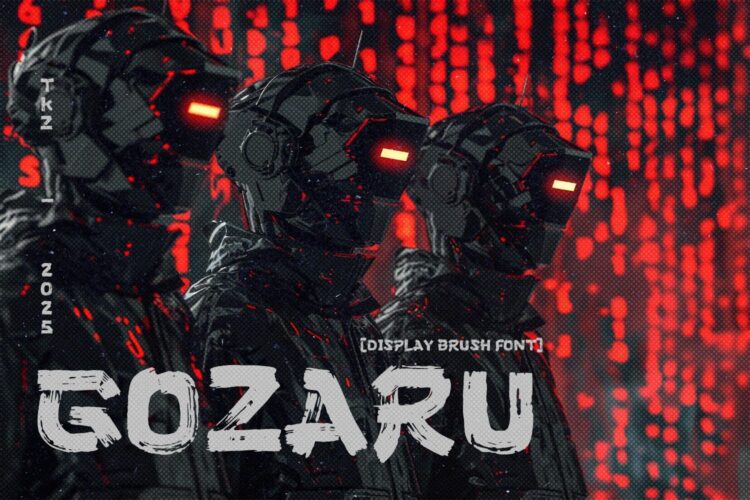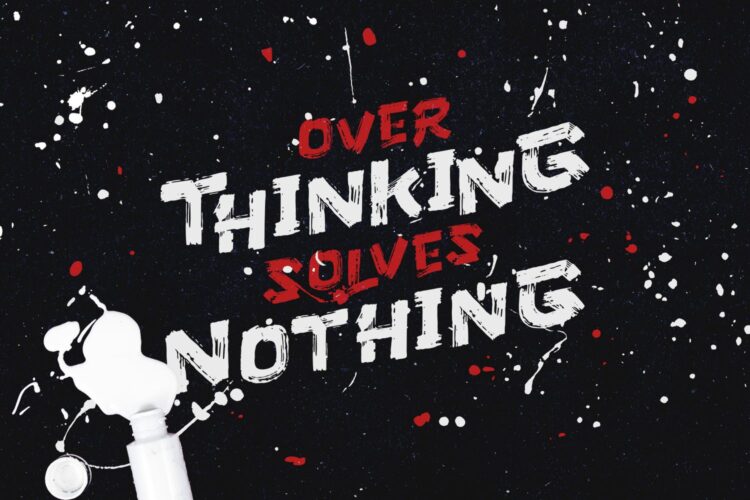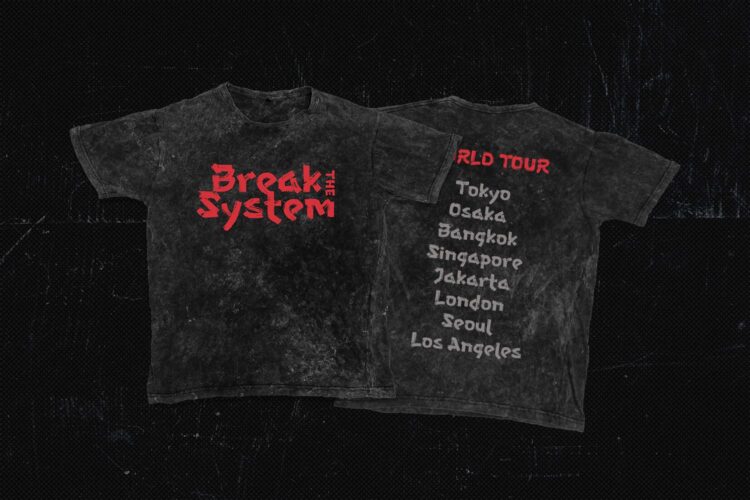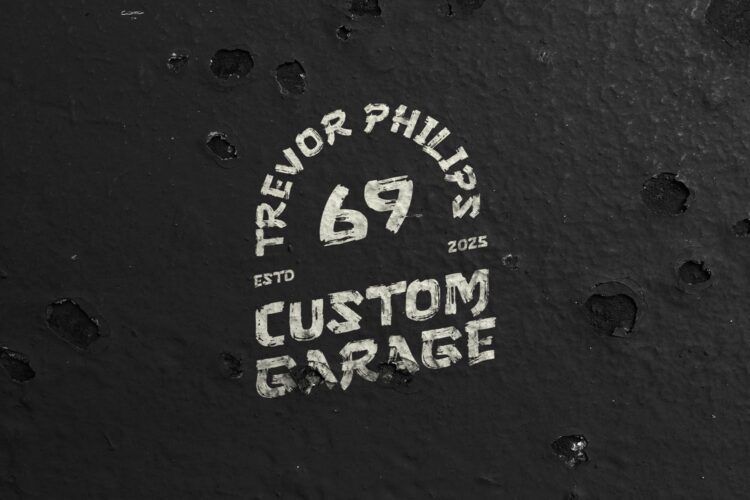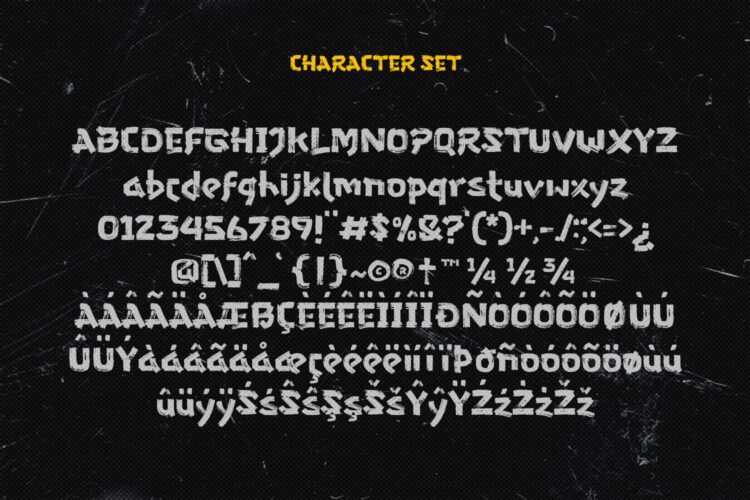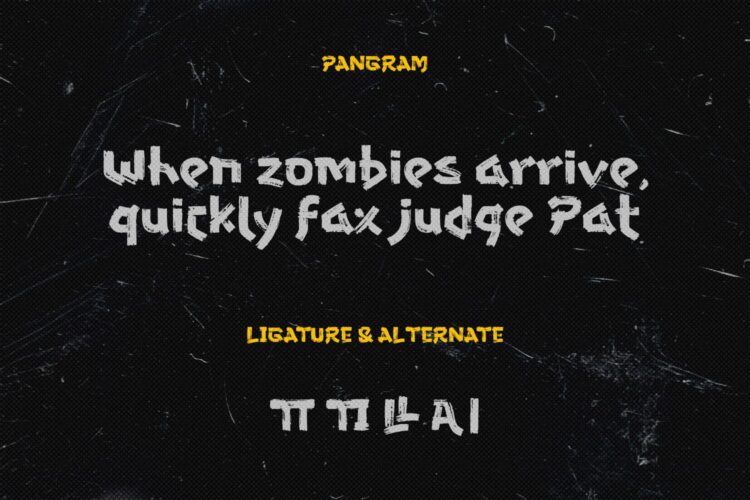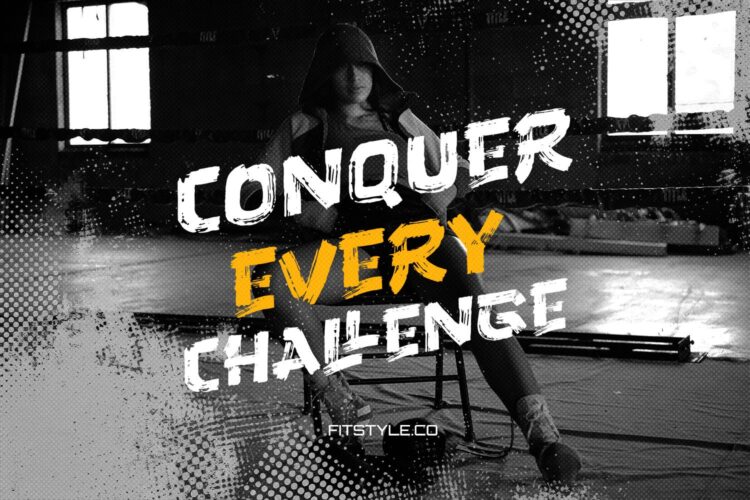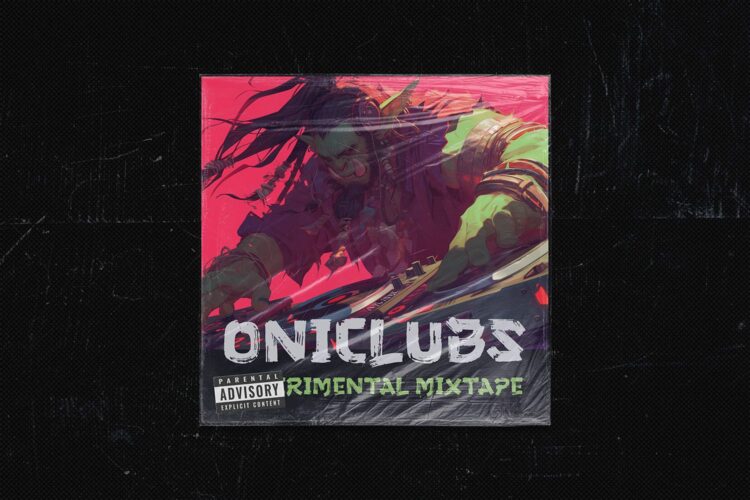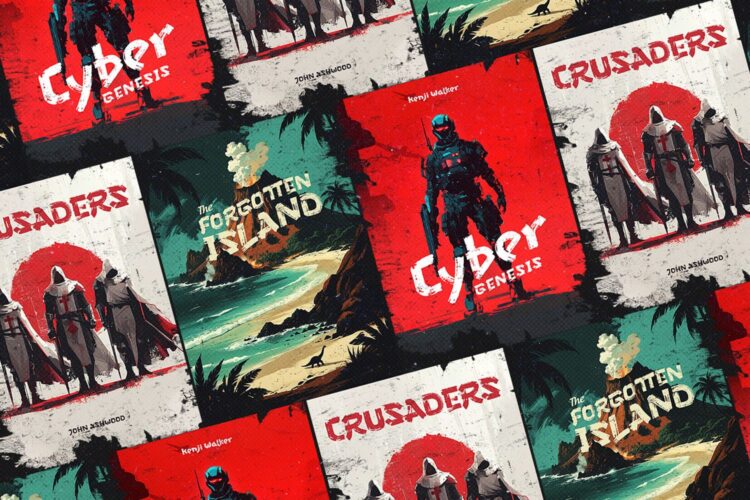
Gozaru is a grungy and playful hand-drawn brush font that grabs instant attention with its bold structures and textured stroke design. Its edgy characteristics and remarkable readability make it both captivating and functional, making it an excellent choice for creating unique logos, movie titles, game titles, posters, book covers, and branding materials.
Features :
- Uppercase
- Lowercase
- Numbers & Punctuation
- Ligatures & Alternate
- Multilingual Support